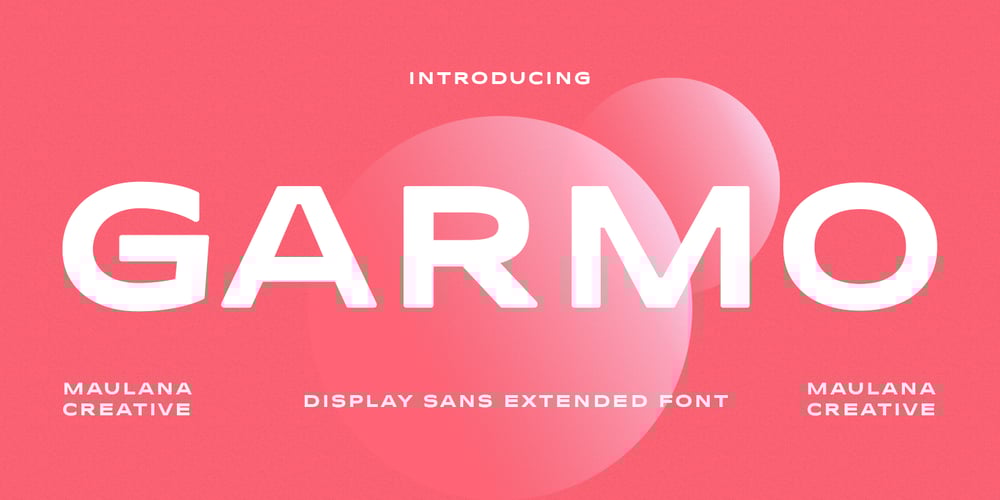
MC Garmo
MC Garmo font
MC Garmo Font Family was designed by Gilang Maulana and published by Maulana Creative. MC Garmo contains 1 styles and family package options. Garmo is a wide strong display sans serif font. Regular stroke, fun character with a bit of ligatures and alternates. To give you an extra creative work. Garmo font support multilingual more than 100+ language. This font is good for logo design, Social media, Movie Titles, Books Titles, a short text even a long text letter and good for your secondary text font with script or serif. Make a stunning work with Garmo font. Cheers, Maulana Creative